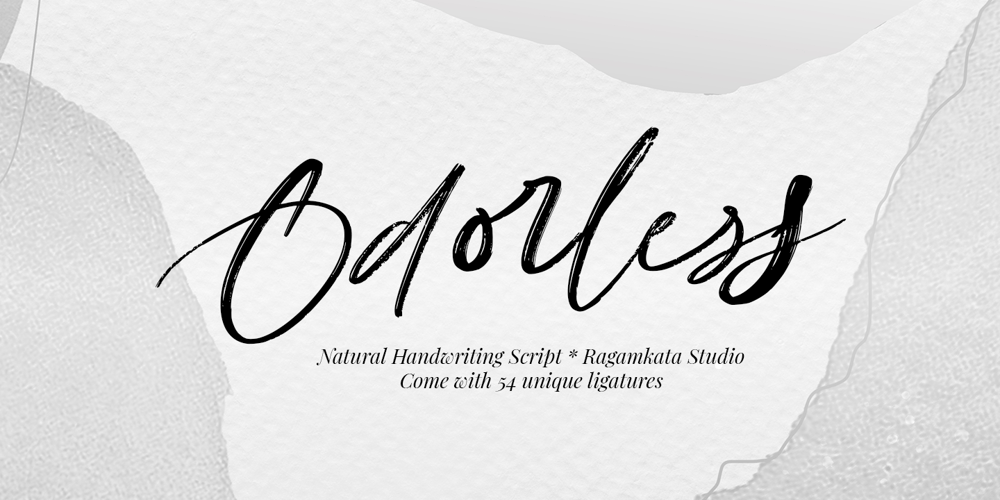
Odorless Font Family was designed by Yogiswhara Dio Prakoso Riadi and published by RagamKata. Odorless contains 1 styles and family package options. Say hello to Odorless – An inky and imperfect handwriting script font with 54 extra Opentype ligatures to add to its naturally handwritten look. Make sure you have your ligatures set to on to see the magic as you type.Great for handwritten quotes, notes, labels, branding or any project that needs an authentic handwritten touch.